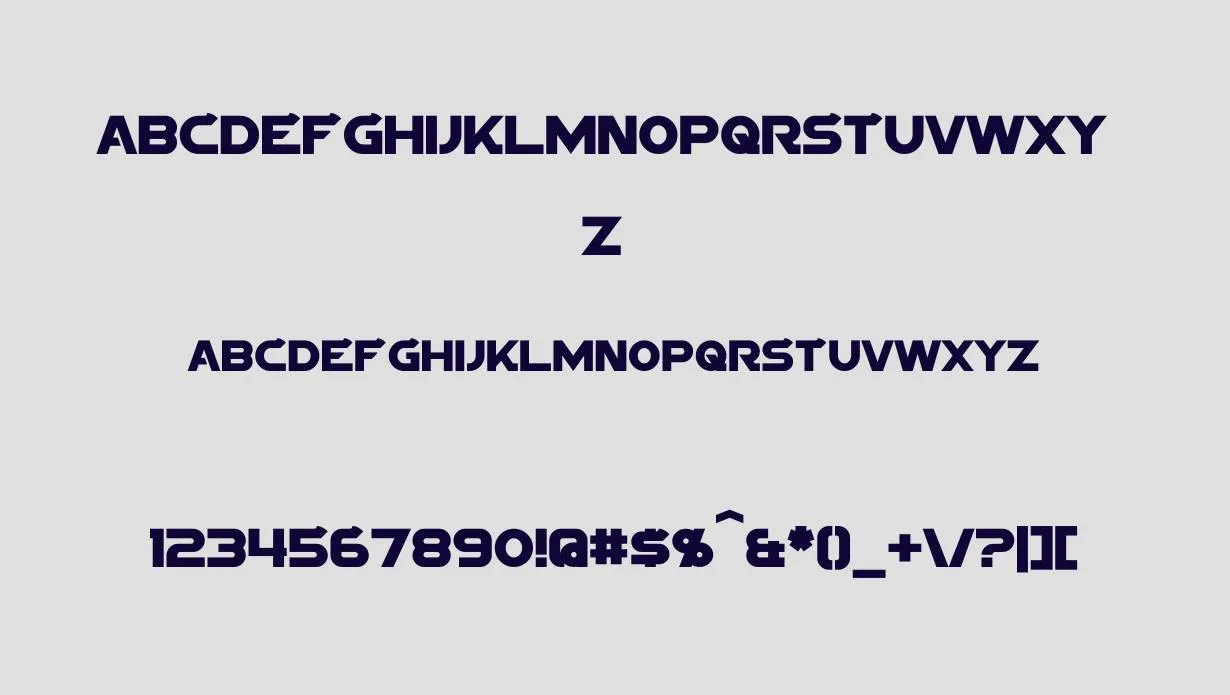
Sigma Five Font offers a clean and modern style, making it ideal for website design, logos, and contemporary editorials. This font often supports file formats like OTF and TTF, ensuring adaptability across different design software.
| Name | Sigma Five Font |
| Designer | Pixel Sagas |
Its sleek and contemporary appearance brings a touch of sophistication to any design, making it well-suited for modern and stylish design needs. Sigma Five Font, with its minimalistic approach, brings a sleek and modern feel to any visual layout.